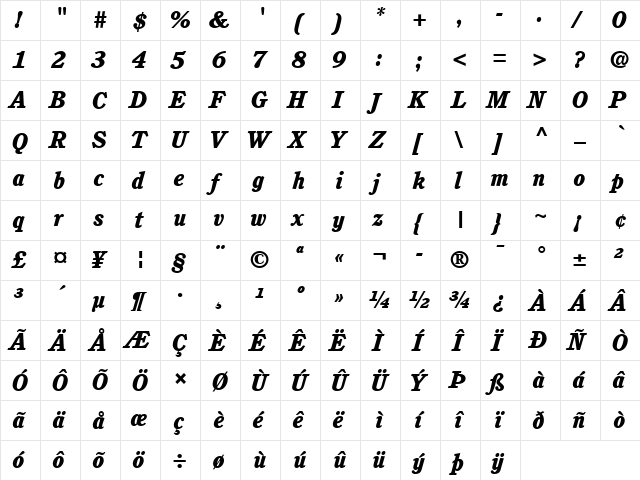
Cushing LT Medium Bold Italic
Design Context for Cushing LT Medium Typeface
Cushing LT Medium takes a measured approach to typography — its balanced proportions and neutral character make it a reliable workhorse for both digital and print work. The dynamic lean of this cut emphasises speed and emphasis in any layout. Its bold stroke weight gives it real presence on the page.
Pro Tip: Use Cushing LT Medium for emphasis, pull quotes, and subheadings where its slanted energy can add rhythm to the layout.